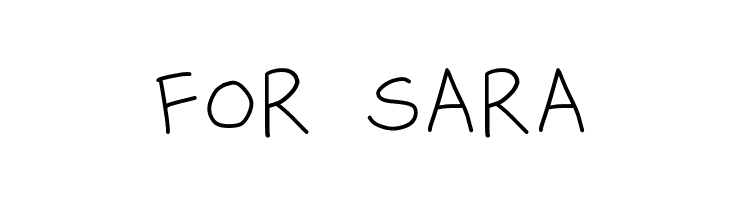
( Fonts by Koczman Balint - magiquefonts.gportal.hu )
A dynamic, handwritten font with artistic flair and varying stroke thickness.
( Fonts by Santiago Mahé )
A playful, handwritten font with a casual and creative style.
( fonts-lab.com/ )
A playful, casual handwritten font with smooth, flowing curves.
( Fonts by Des Gomez )
A playful, bold handwritten font with a whimsical and friendly style.
( Qurrota font )
A playful, handwritten font with irregular strokes and a casual vibe.
( Fonts by Jacob Fisher - www.pizzadude.dk )
A bold, expressive handwritten font with dynamic strokes and a playful appearance.
( Fonts by Fanandia Mochamad Adenansyah )
A playful handwritten font with a casual and friendly style.
( Fonts by Geronimo )
A playful, handwritten font with a casual and friendly style.
( www.lostwarren.com )
An elongated, hand-drawn font with a dynamic and artistic style.